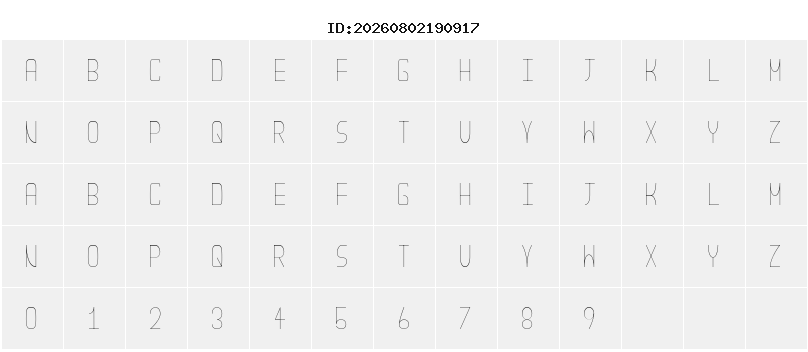
• Font Name: Nouveau Fontdue
• Designer: Michael Wong
About Nouveau Fontdue.ttf
Nouveau Fontdue.ttf is a modern, elegant sans-serif font designed for ultimate readability and visual harmony. Perfect for branding, headlines, web design, and print materials.